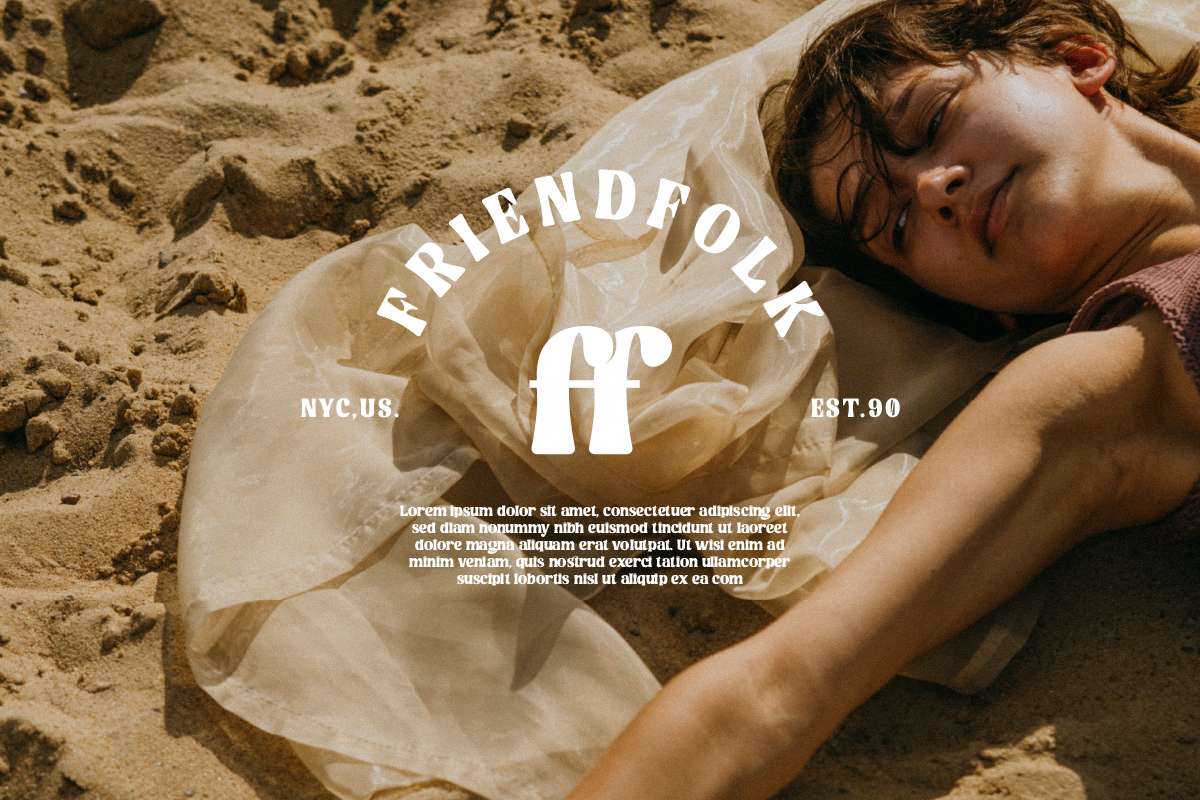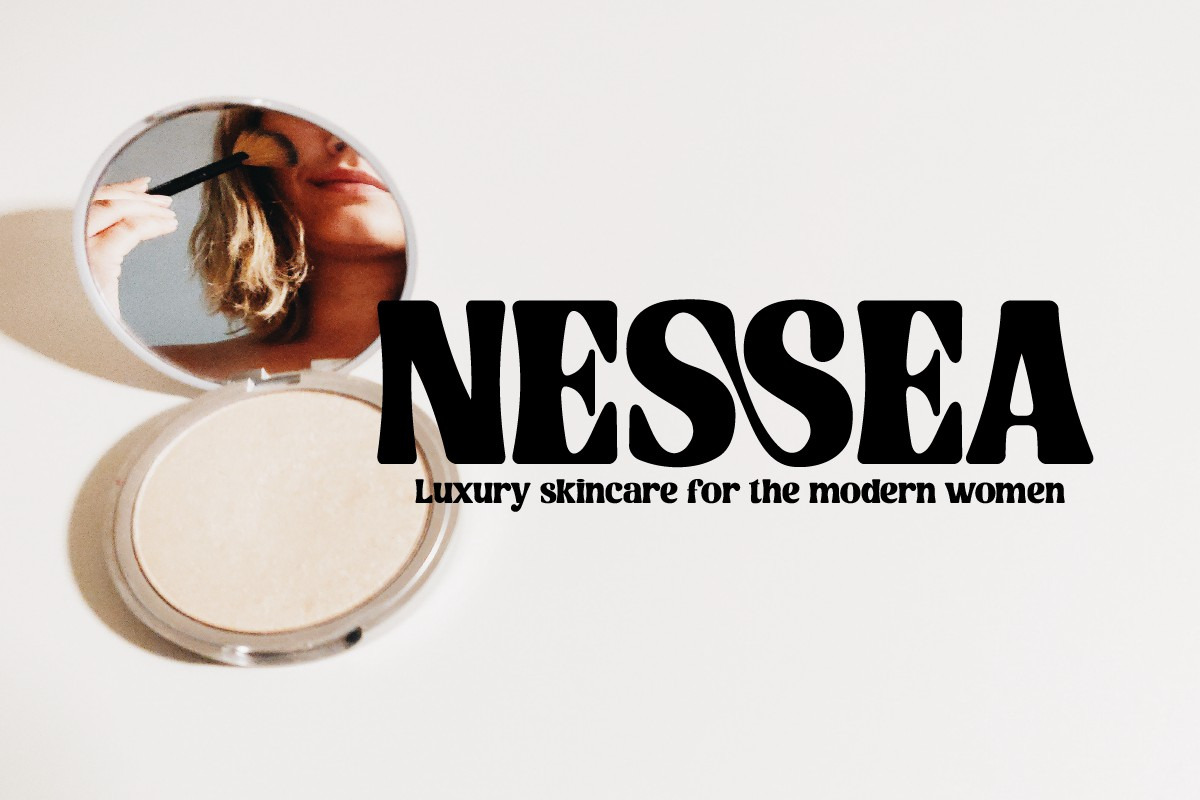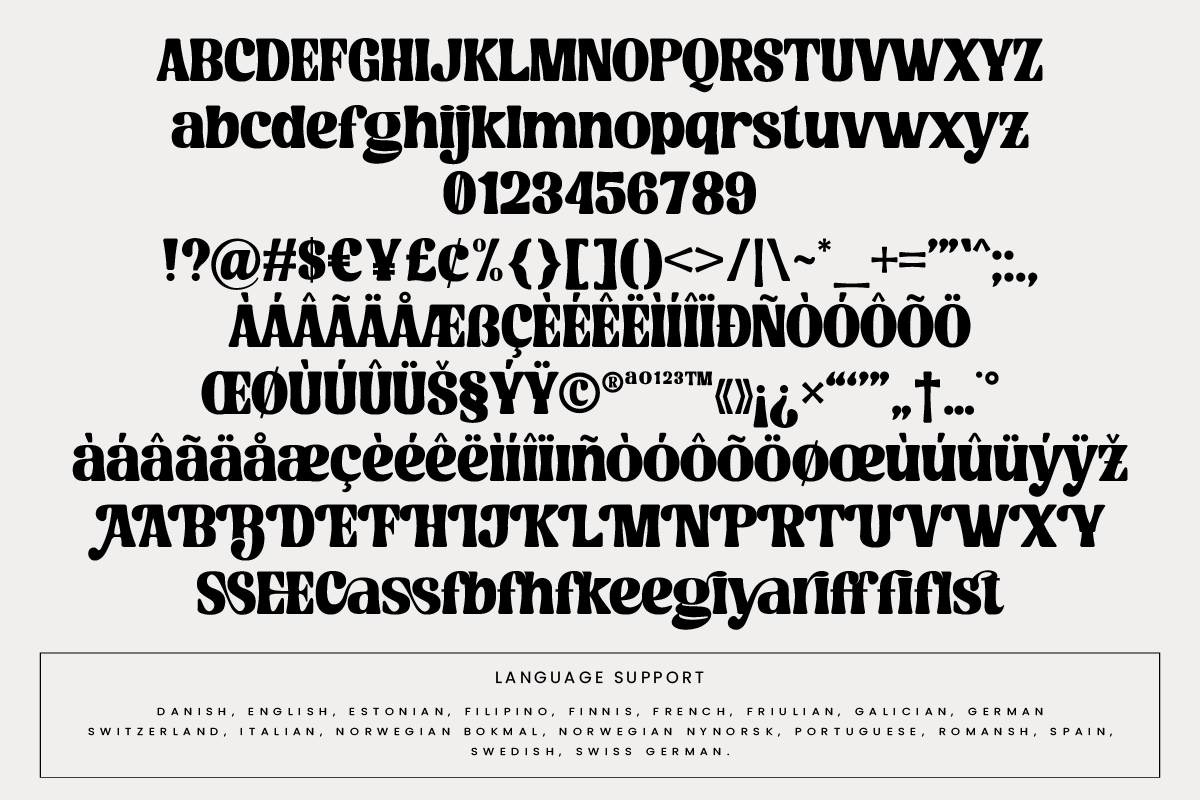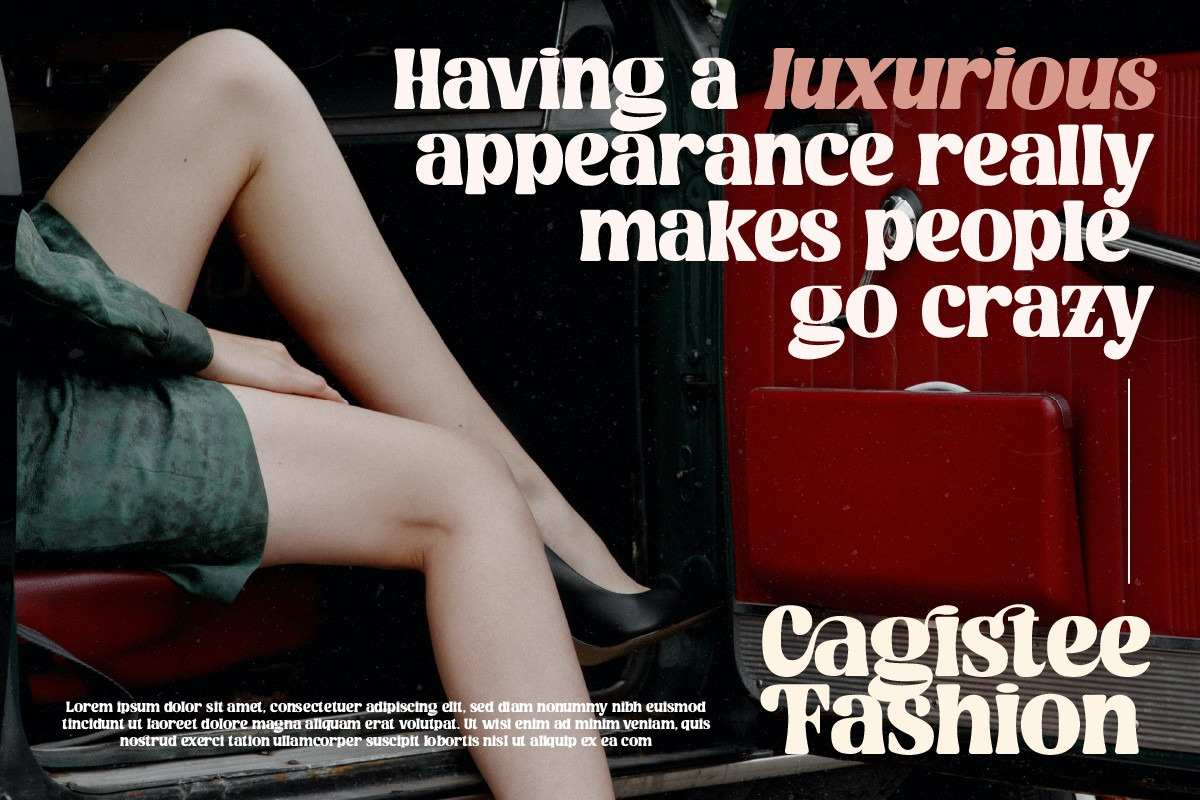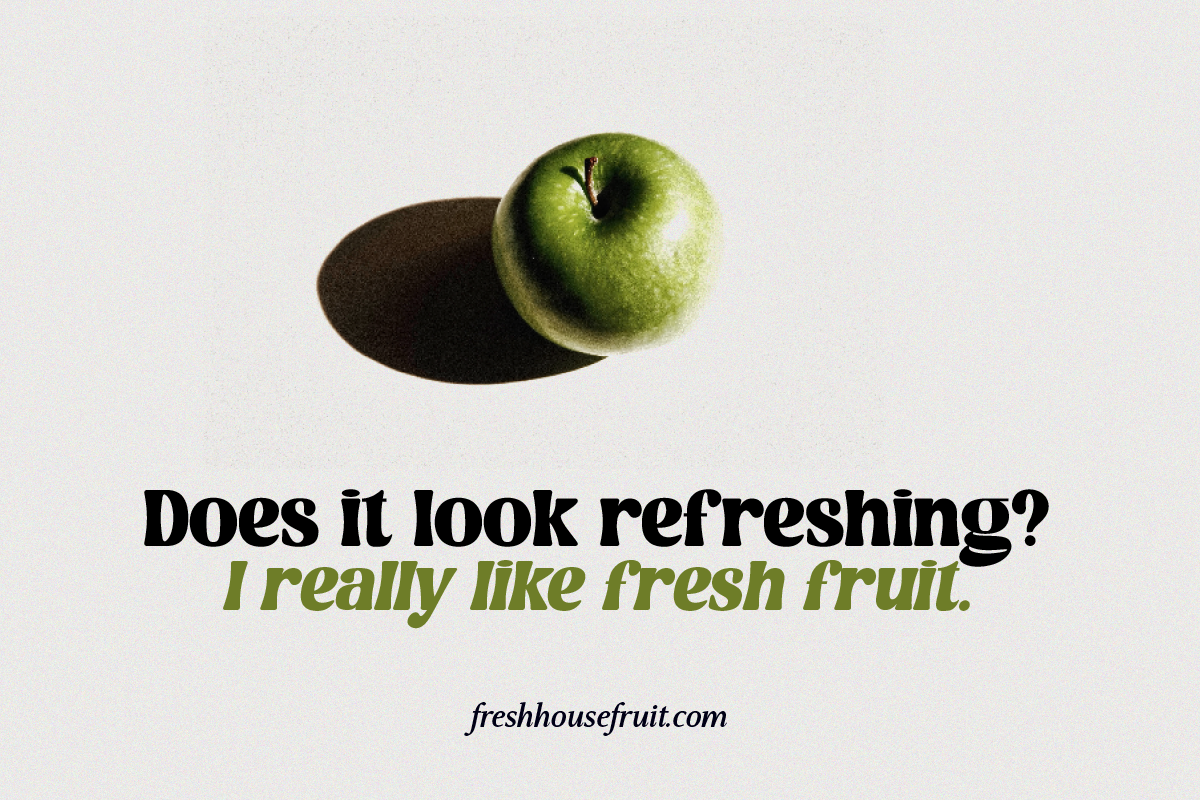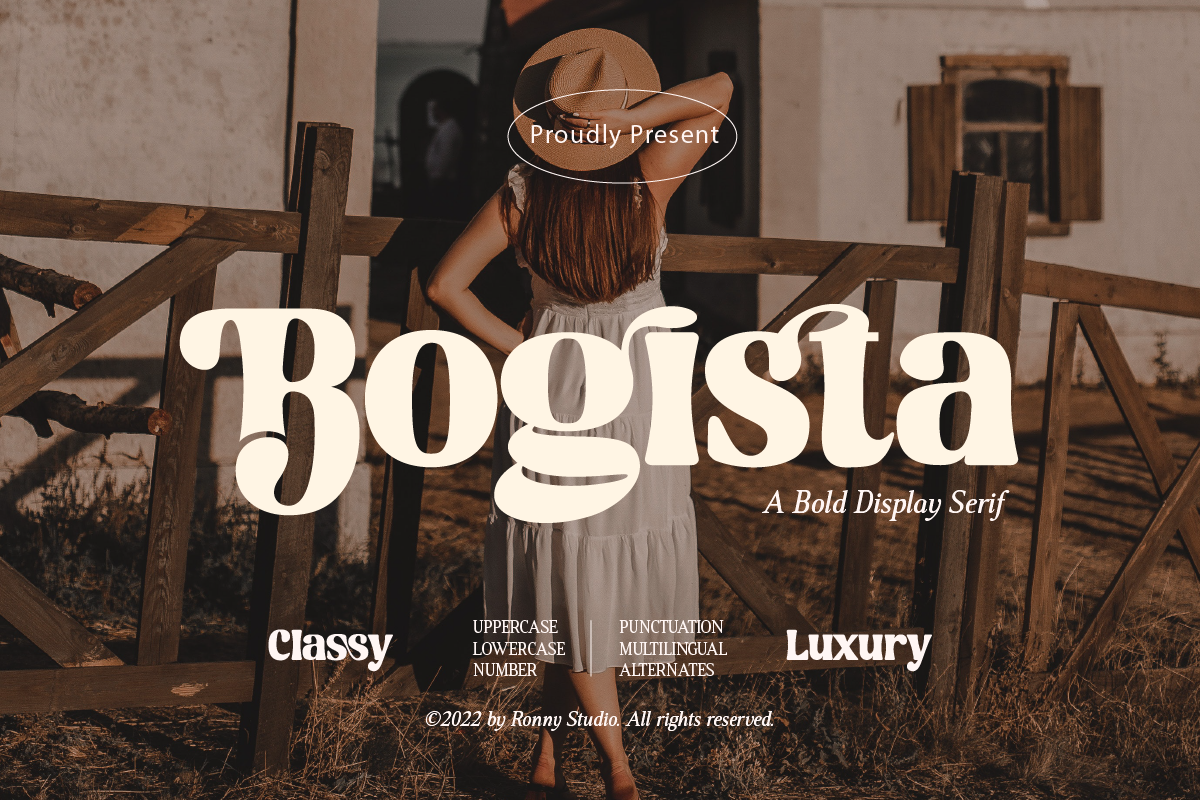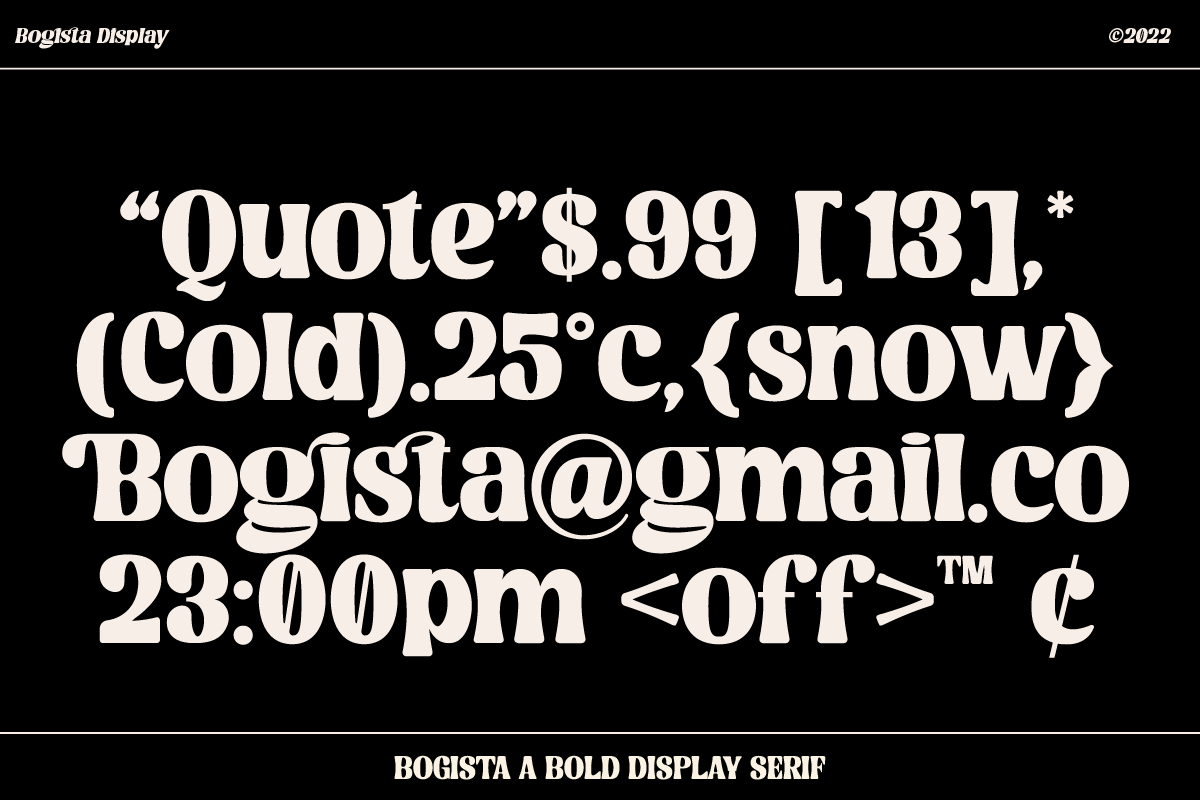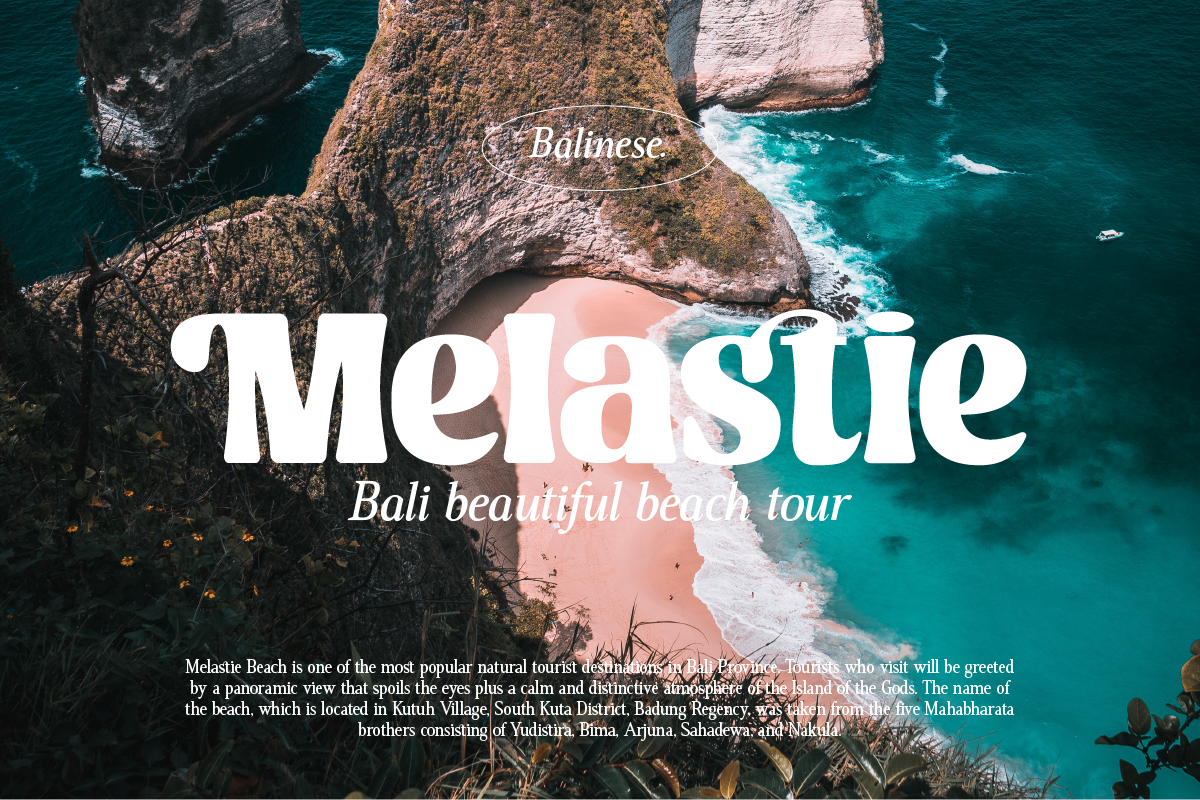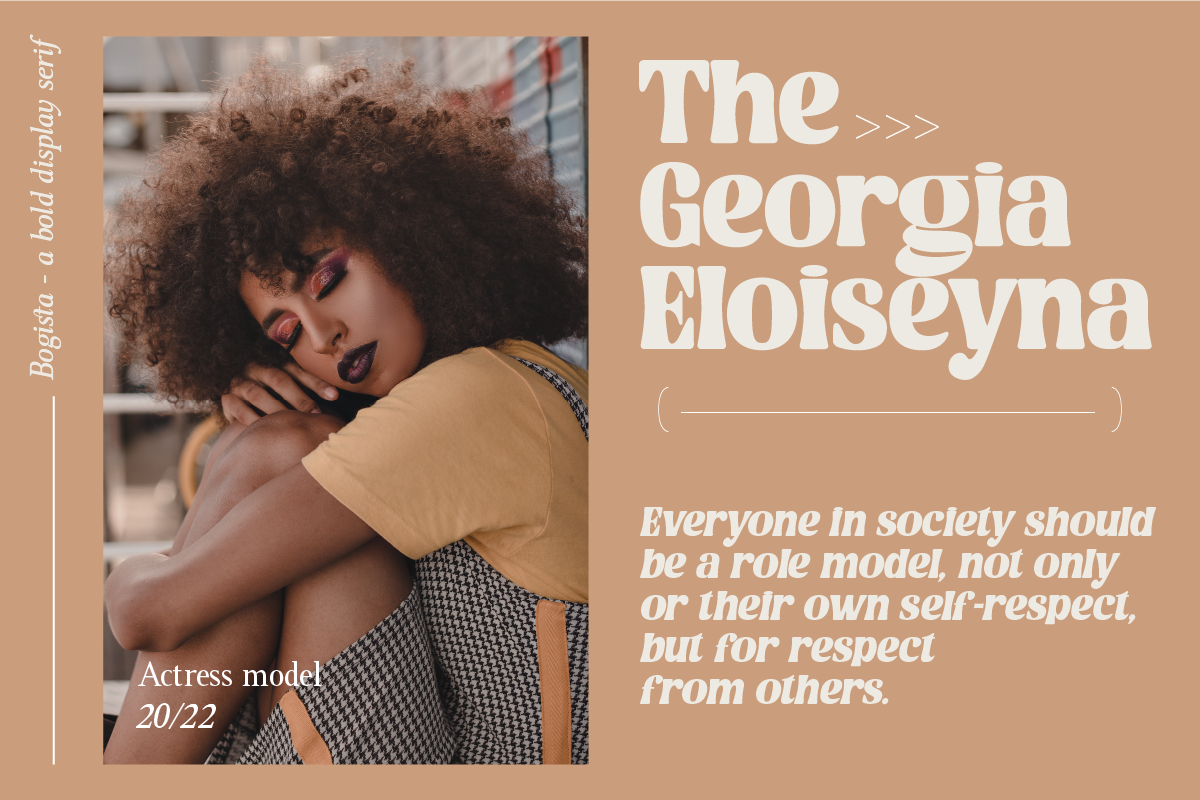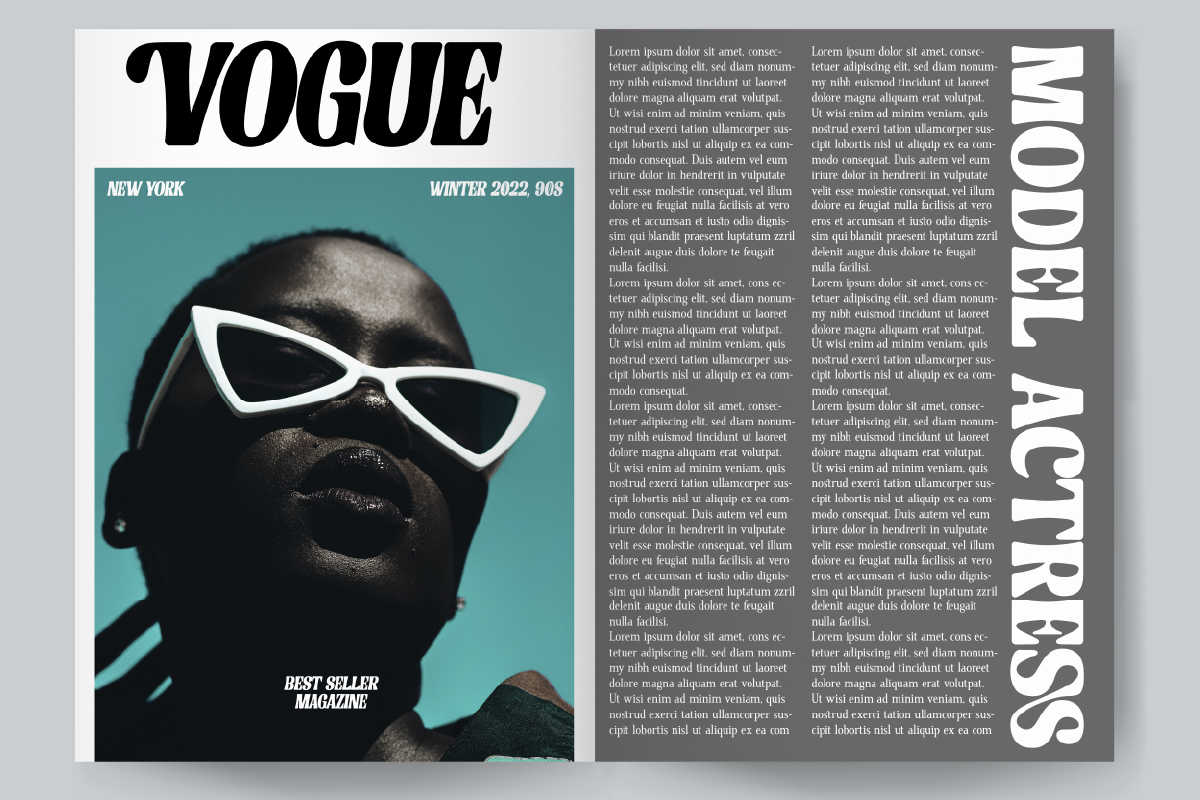
Bogista Bold Elegant Serif Font
Bogista – Bold Elegant Serif Font for Stylish and Sophisticated Designs
Introducing Bogista, a bold and elegant serif font designed to add sophistication and style to your design projects. With its sharp serifs, balanced proportions, and modern flair, Bogista is perfect for creating high-end branding, luxurious packaging, editorial layouts, and social media graphics that demand attention.
Its versatility makes it ideal for both print and digital applications, giving your designs a professional, timeless look.
- Bold Elegant Serif Style – Combines classic serif elegance with bold, stylish forms.
- Complete Character Set – Includes uppercase, lowercase, numbers, punctuation, and multilingual support.
- PUA Encoded – Easy access to all characters and stylistic alternates without special software.
- Versatile Usage – Suitable for logos, packaging, branding, headlines, editorial layouts, social media, and more.
- High-end logo and brand identity design
- Elegant packaging for cosmetics, perfumes, and luxury products
- Editorial layouts, magazines, and blog headers
- Social media posts and marketing materials that demand a stylish touch
- Wedding invitations, fashion campaigns, and event branding
- Any project requiring a sophisticated and timeless serif typeface
Bring elegance and style to your typography with Bogista.